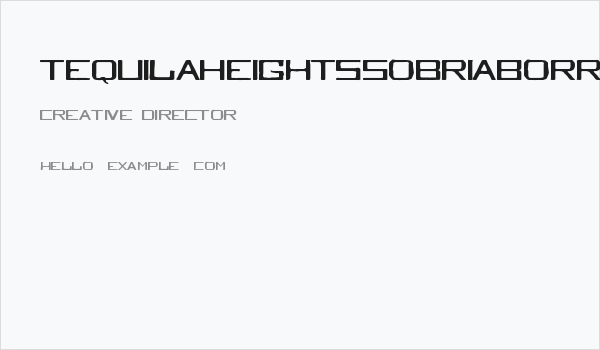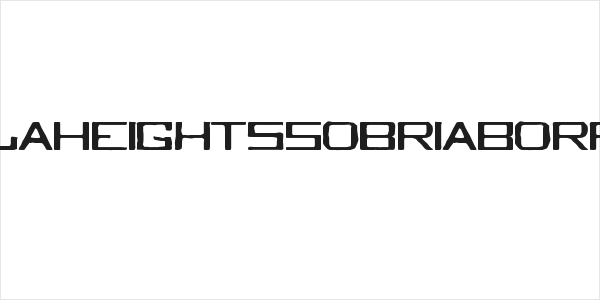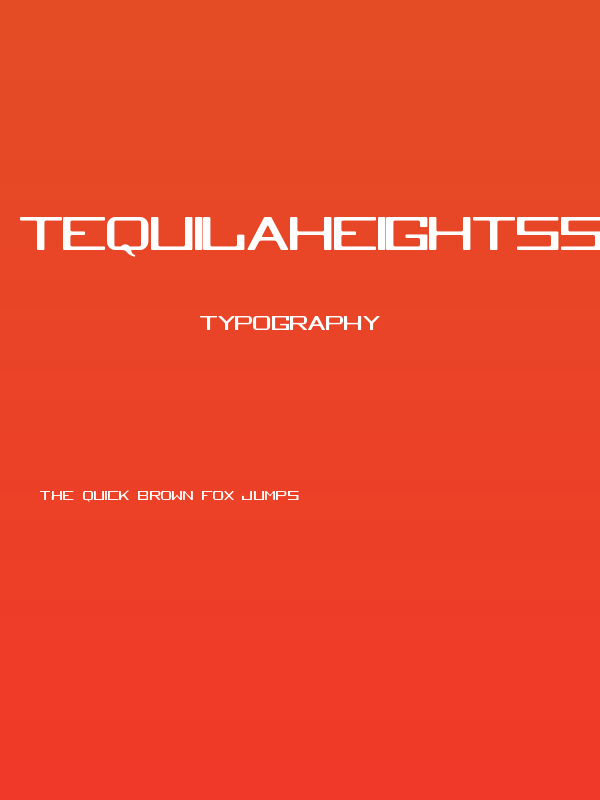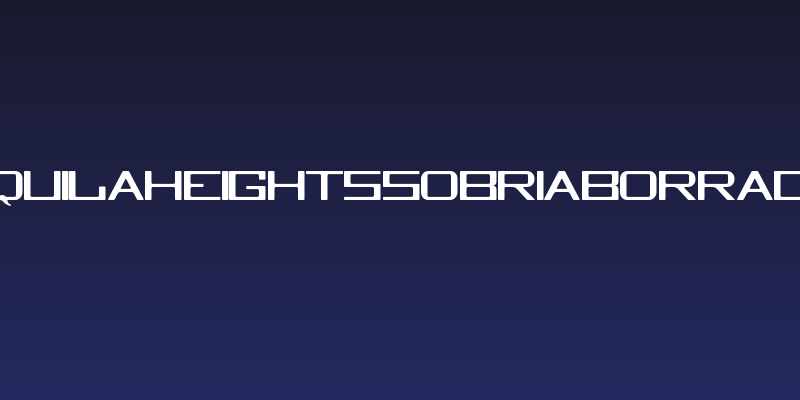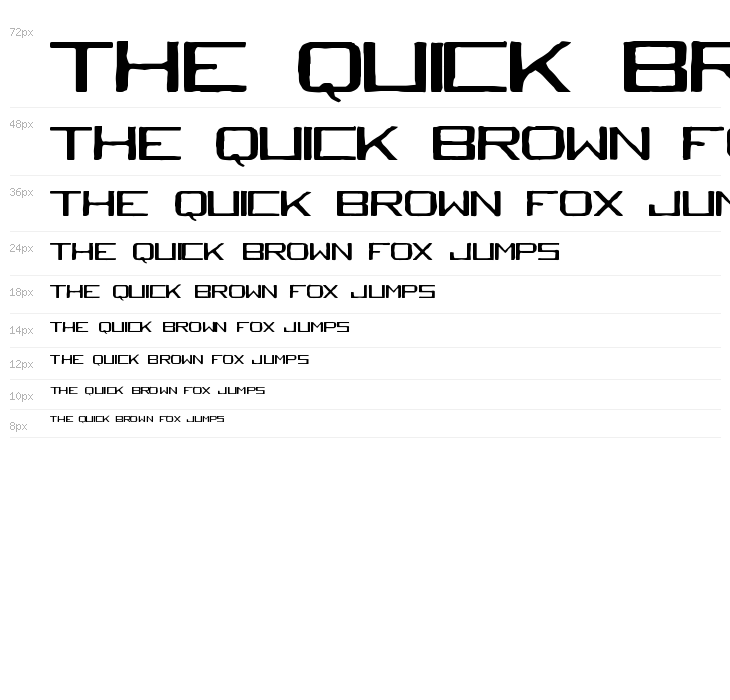
TequilaHeightsSobriaBorracha Font
TequilaHeightsSobriaBorracha Description
This font features a bold, geometric design with a futuristic and industrial feel. The characters are constructed with sharp, angular lines and a consistent stroke width, giving it a mechanical and structured appearance. The uppercase letters are particularly striking, with a uniform height and width that create a cohesive look. The font's unique style is emphasized by its clean edges and modern aesthetic, making it suitable for projects that require a strong visual impact. Its distinctiveness is further highlighted by the minimal contrast in stroke thickness, which maintains a uniformity across all characters. This font is ideal for use in branding, headlines, and any design that seeks to convey a sense of modernity and strength.
| Proposed Projects | Ideal for branding, headlines, and modern design projects. |